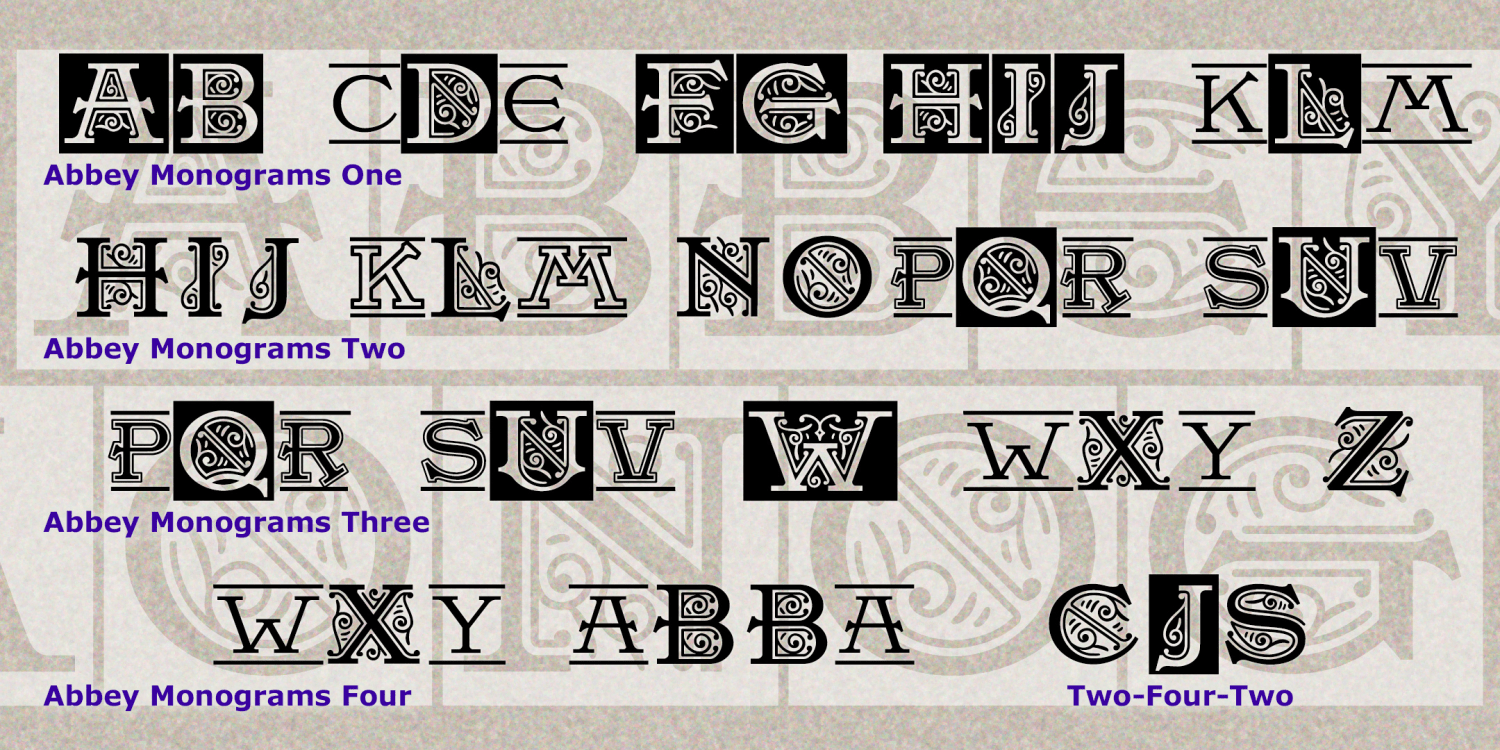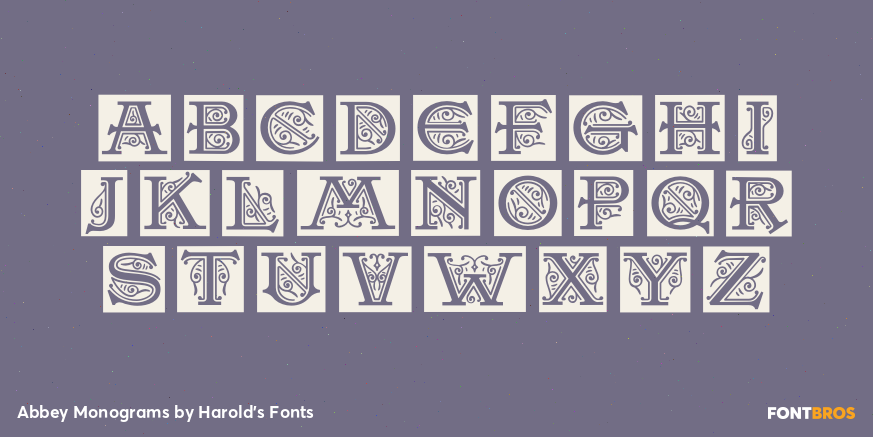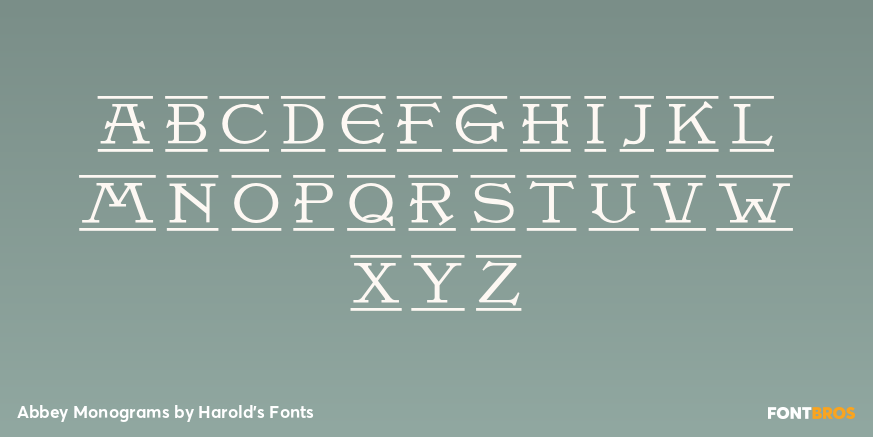
Abbey Monograms
Font Family by Harold's Fonts
ABBEY MONOGRAMS combine stately initials with graceful decoration. Inspired by vintage typography, each letter is crisply drawn and richly detailed, perfect for display at any size in any medium. Each font includes illuminated caps in the uppercase positions and plain, inline or outline caps in the lowercase positions. And you can mix and match the fonts for more variety. Very simple to use: just type!